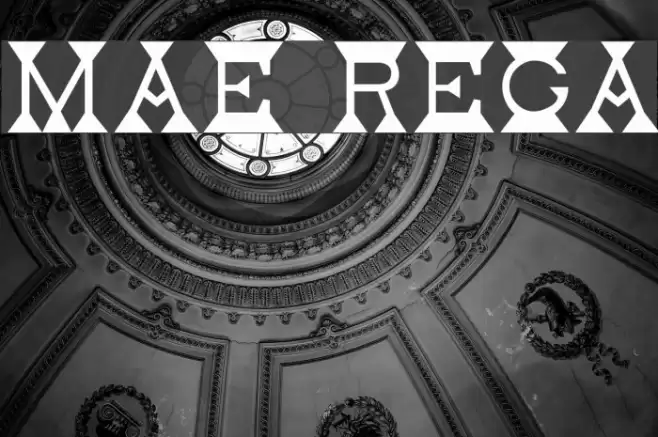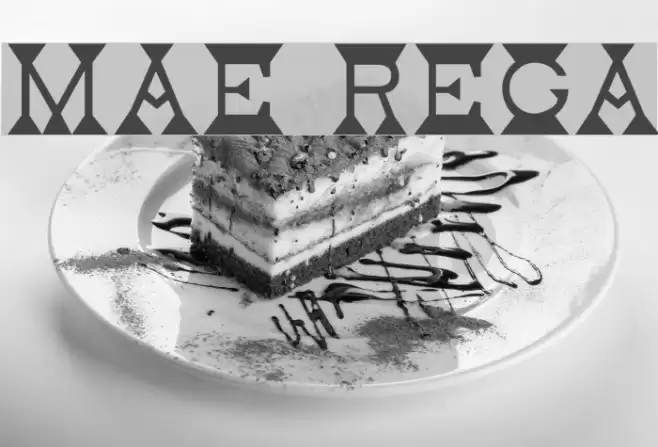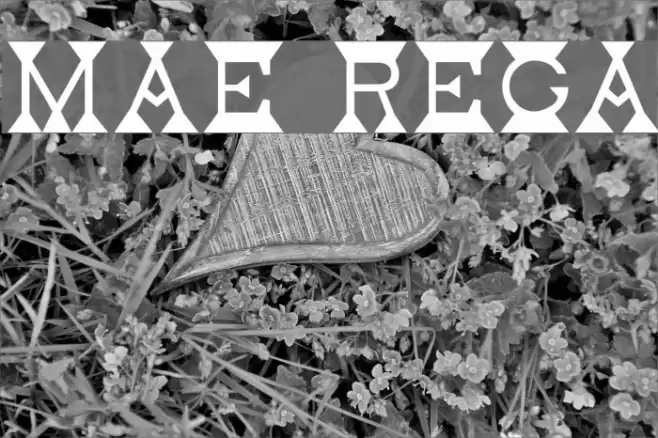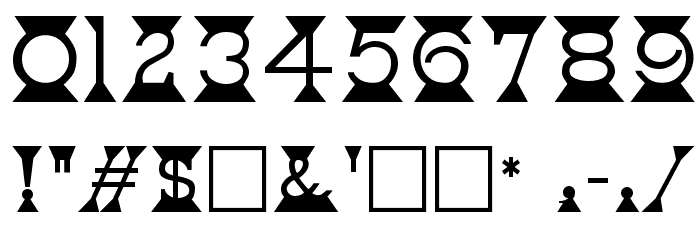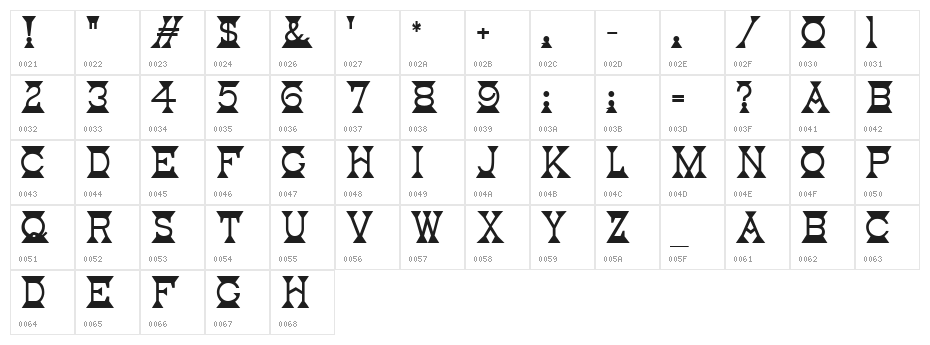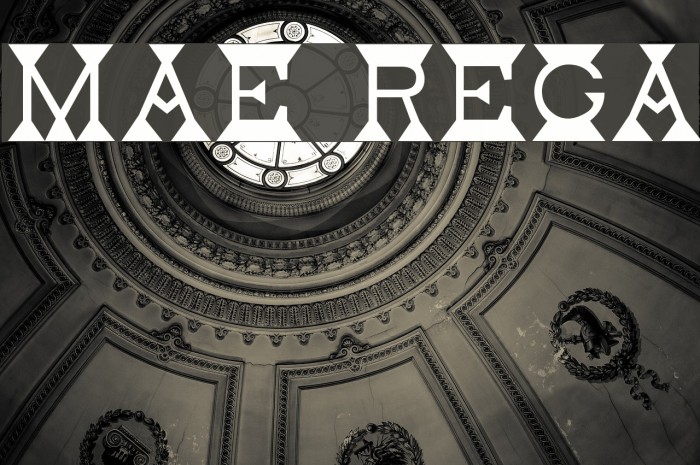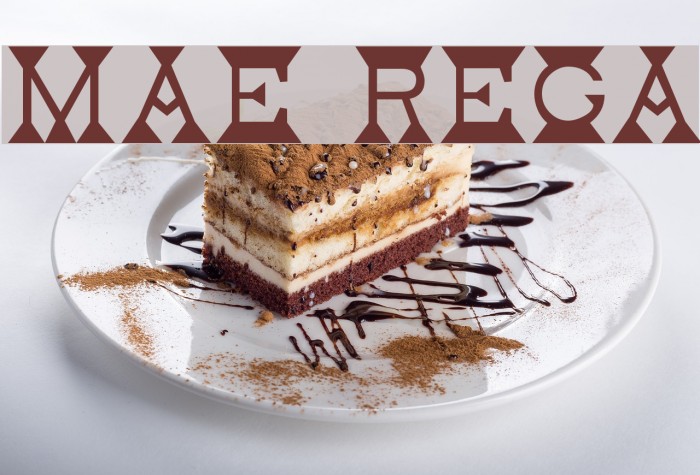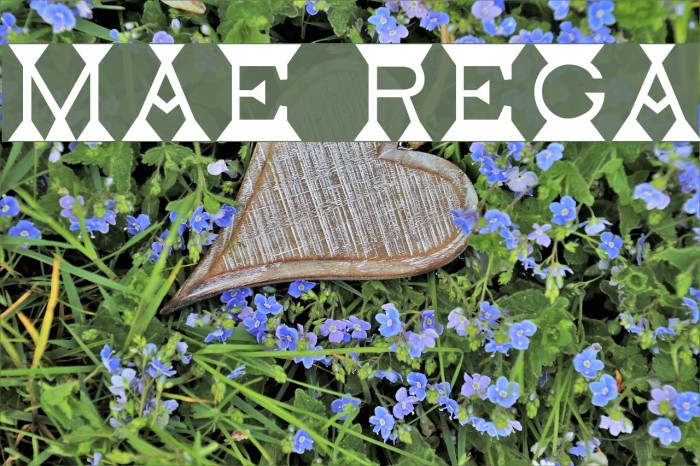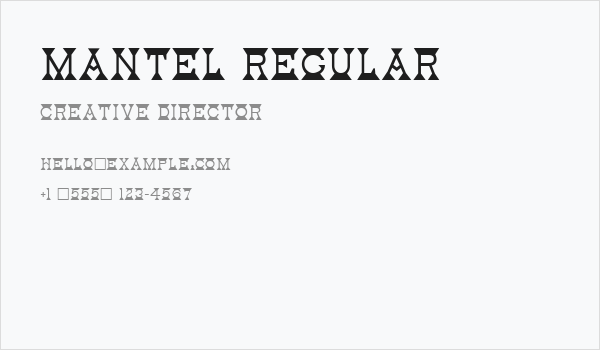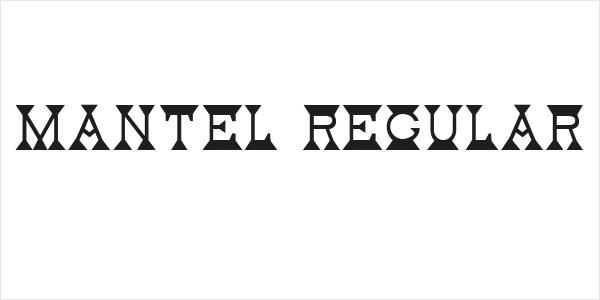
Mantel Regular Font
Mantel Regular Description
This font features a bold and striking design with a geometric and angular style. The characters are crafted with sharp edges and a unique cut-out effect that creates a sense of depth and dimension. The uppercase and lowercase letters maintain a consistent structure, while the numerals and special characters follow the same bold and distinctive pattern. The overall appearance is modern and eye-catching, making it suitable for projects that require a strong visual impact.
A bold, geometric font with sharp edges and a modern style from Decorative fonts.
- Proposed Projects: Ideal for branding, poster design, headlines, and any project needing a bold statement.